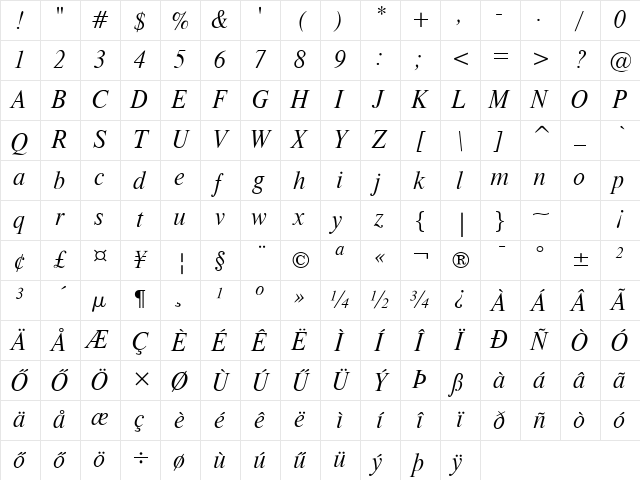
Complete Dutch-801 Hd HU Italic glyph index. Displaying only characters natively supported by Dutch-801 Hd HU Italic font.
Dutch-801 Hd HU is a composed and adaptable typeface that performs quietly and consistently across a wide range of design contexts. The slanted form adds forward momentum and visual energy.